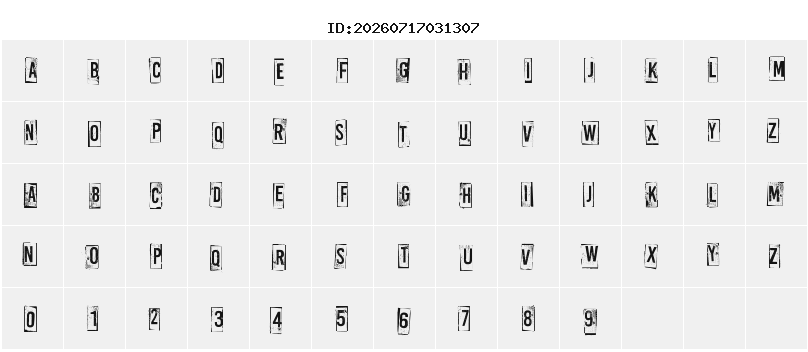
A Box For 3 Preview
• Font Name: A Box For 3
• Full Font Name: A Box For 3
• Version: Version 1.00 September 10, 2015, initial release
About A Box For 3.ttf
A Box For 3.ttf is a modern, elegant sans-serif font designed for ultimate readability and visual harmony. Perfect for branding, headlines, web design, and print materials.